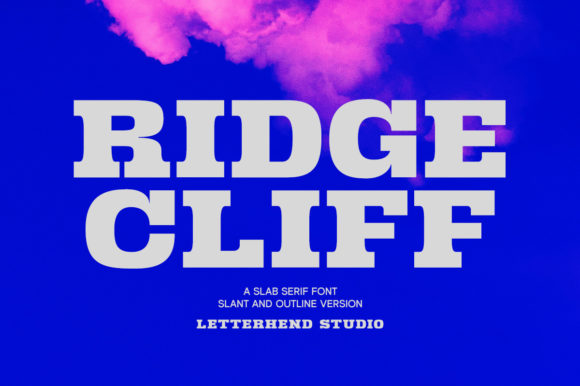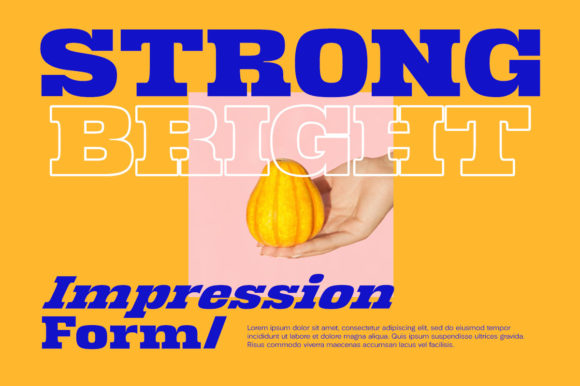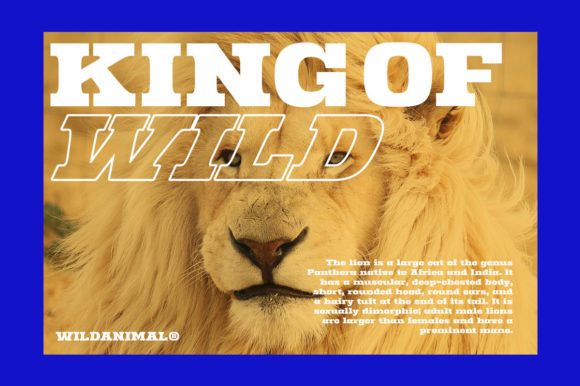
RIDGE CLIFF FONT SPECIMEN
Ridge Cliff is a cool, thick lettered and outlined slab serif typeface with a strong look and feel.This type of font was perfectly made to be applied especially in logos, headlines, signage and other various forms of design, such as invitations, labels, magazines covers or book titles.